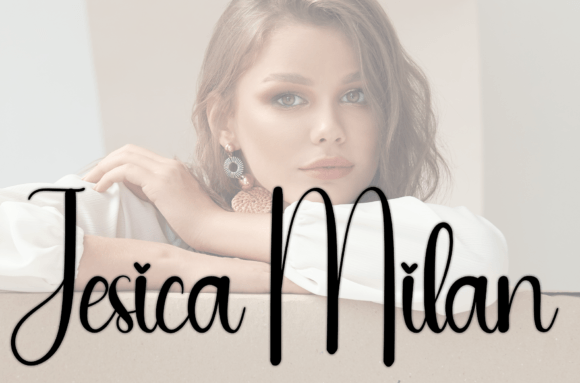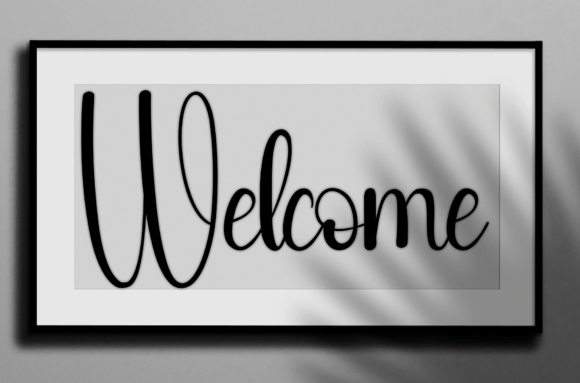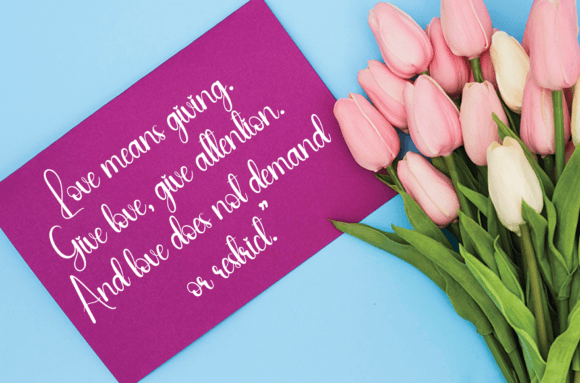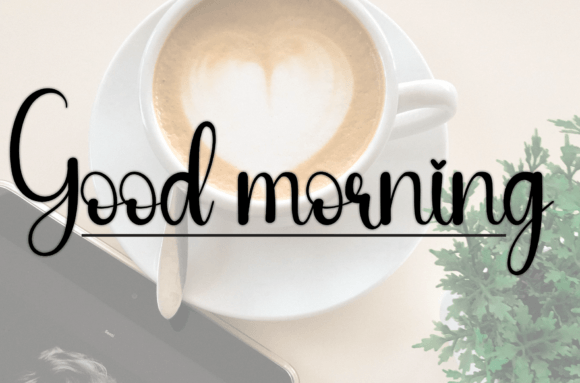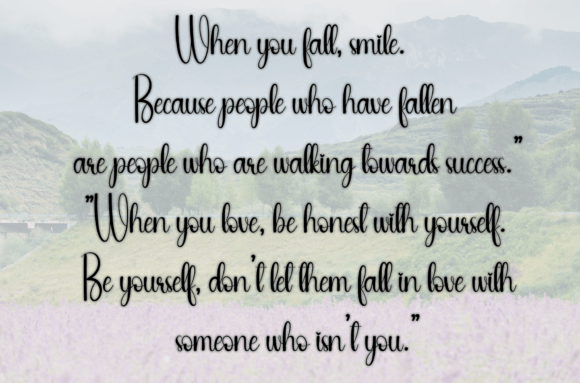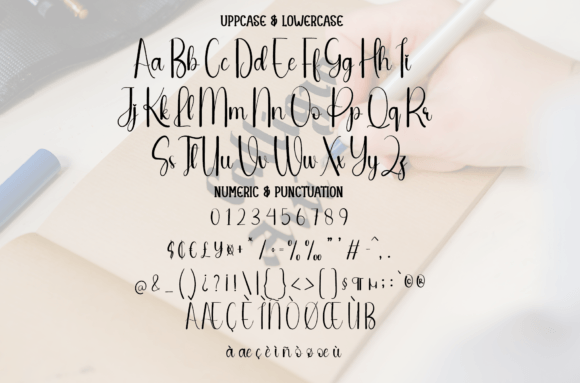
Have you ever been working on a project and suddenly felt the urge to add a dash of personality? Maybe it’s a wedding invitation, a birthday card, or a social media post that needs a bit of flair. Whatever the case, you’re not alone in seeking that perfect font to elevate your design.
That’s where the Calligraphy Font comes in – a sweet and friendly handwritten display font that’s perfect for adding a touch of whimsy to your projects. This cute and fun font is ideal for writing wedding invitations, cards, or any other design that might need a fun touch! As a designer, you know how valuable it is to have a versatile font that can add a personal touch to your work.
Key Features of Calligraphy Font
- Unique Characteristics: Features elegant, handwritten strokes and flourishes, making it ideal for creative and artistic applications.
- Customization Options: Allows for advanced customization through OpenType features, including ligatures, swashes, and contextual alternates.
Calligraphy Font Review
Overall, I’m quite impressed with the Calligraphy Font, but like any design tool, it’s not perfect. Let’s dive into the good and the not-so-good.
- Beautiful, elegant script – perfect for invitations, wedding cards, or any occasion that needs a touch of sophistication.
- Highly customizable – you can adjust the font size, line height, and even add your own flair with custom embellishments.
- Supports a wide range of languages – making it a great option for multilingual designs.
- Can be quite busy – the intricate details and flourishes can make the text look cluttered if not used carefully.
- Limited readability at small font sizes – the font’s beauty comes at the cost of legibility, which can be a problem in certain situations.
- May require some practice to master – getting the perfect balance between elegance and readability can take some trial and error.
Overall, I think the Calligraphy Font is a great addition to any designer’s toolkit, but it’s essential to use it thoughtfully and consider the context of your design. With some practice and a keen eye for balance, this font can add a touch of magic to your work.
Calligraphy font is commonly used in wedding invitations, event invitations, and formal announcements. It is also used in creative marketing materials, such as brochures and flyers, to add a touch of elegance and sophistication.